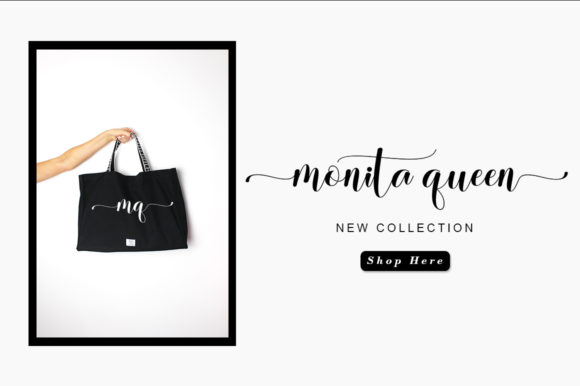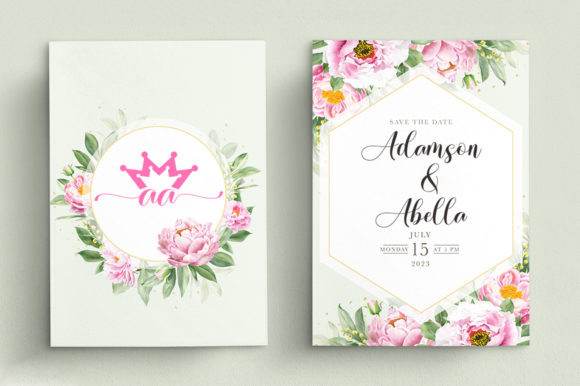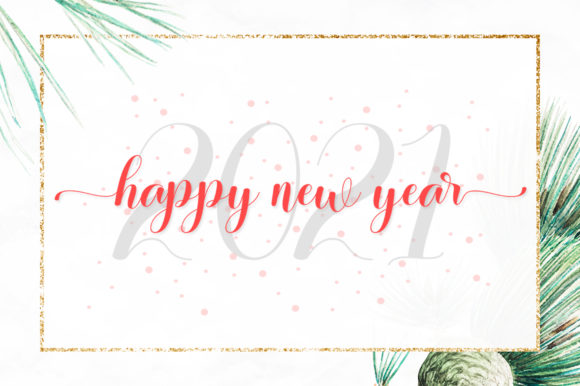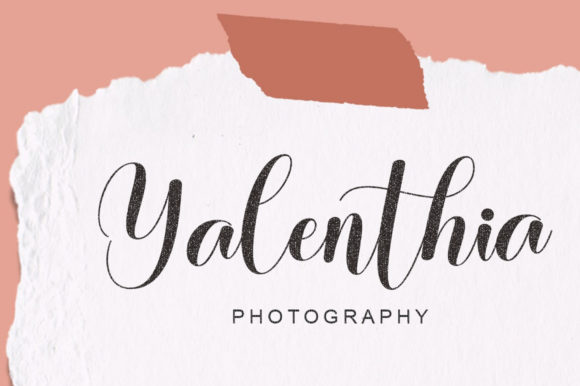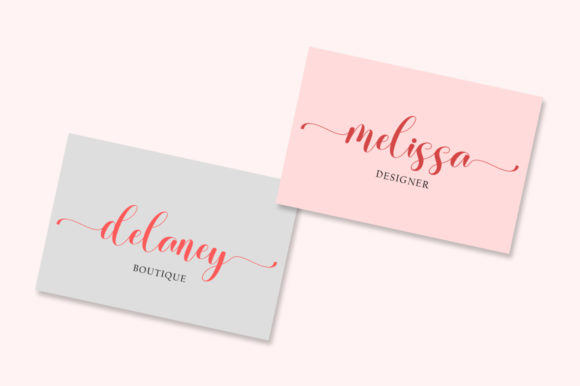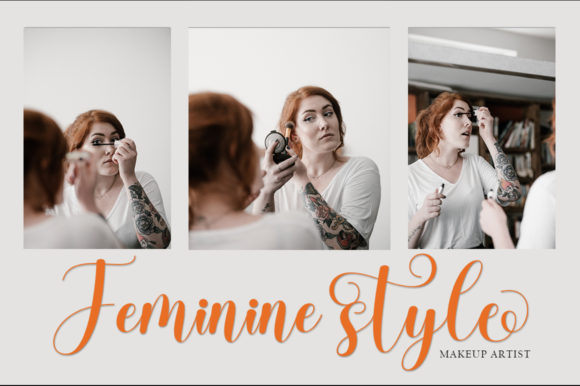
Discover the Charm of Authentic Sheldon: A Beautiful Script Font
Are you a designer or crafter looking for a unique and versatile font to elevate your creative projects? Look no further than Authentic Sheldon, a lovely script font that is sure to capture your heart. With its elegant and authentic style, this font is perfect for a wide range of applications, from wedding designs to social media posts.
What Makes Authentic Sheldon Special?
Authentic Sheldon is a beautifully crafted script font that boasts a range of impressive features. One of the standout aspects of this font is its extensive range of alternative styles, ligatures, swashes, and multilingual glyphs. This means that you can use Authentic Sheldon to create a wide variety of designs, from classic and traditional to modern and playful.
Another key benefit of Authentic Sheldon is that it is PUA (Private Use Area) encoded. This means that you can access all of the font’s glyphs and swashes with ease, giving you complete creative control over your designs. With PUA encoding, you can simply copy and paste the glyphs and swashes into your design software, making it easy to get the look you want.
Authentic Sheldon is a highly versatile font that can be used for a wide range of applications. Some ideas for using this font include:
- Wedding designs: Create beautiful wedding invitations, programs, and decorations with Authentic Sheldon.
- Logos: Use Authentic Sheldon to create a unique and memorable logo for your business or brand.
- Posters: Design eye-catching posters for events, promotions, or advertising campaigns.
- Name cards: Create professional and stylish name cards for conferences, meetings, or networking events.
- Invitations: Design elegant and sophisticated invitations for parties, events, or special occasions.
- Social media posts: Use Authentic Sheldon to add a touch of elegance and sophistication to your social media posts.
Why Choose Authentic Sheldon?
So why choose Authentic Sheldon over other script fonts? Here are just a few reasons:
- Unique and authentic style: Authentic Sheldon has a distinctive and charming style that sets it apart from other script fonts.
- Highly versatile: With its range of alternative styles, ligatures, swashes, and multilingual glyphs, Authentic Sheldon can be used for a wide range of applications.
- Easy to use: PUA encoding makes it easy to access all of the font’s glyphs and swashes.
- Beautiful and elegant: Authentic Sheldon is a beautiful and elegant font that is sure to add a touch of sophistication to your designs.
Tips for Using Authentic Sheldon
Here are a few tips for getting the most out of Authentic Sheldon:
- Experiment with different styles: Authentic Sheldon comes with a range of alternative styles, so don’t be afraid to try out different looks to find the one that works best for your design.
- Use swashes and ligatures: The swashes and ligatures in Authentic Sheldon can add a touch of elegance and sophistication to your designs.
- Pair with other fonts: Authentic Sheldon pairs well with a range of other fonts, so don’t be afraid to experiment with different combinations to find the one that works best for your design.
Authentic Sheldon is a beautiful and versatile script font that is perfect for designers and crafters looking to add a touch of elegance and sophistication to their creative projects. With its range of alternative styles, ligatures, swashes, and multilingual glyphs, Authentic Sheldon is sure to become a go-to font in your design arsenal. So why wait? Download Authentic Sheldon today and start creating stunning designs that will leave a lasting impression.